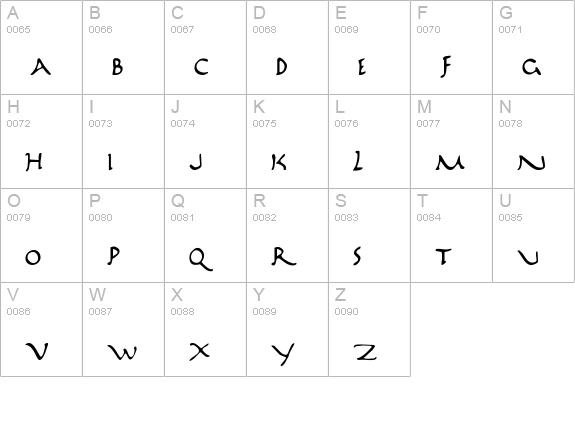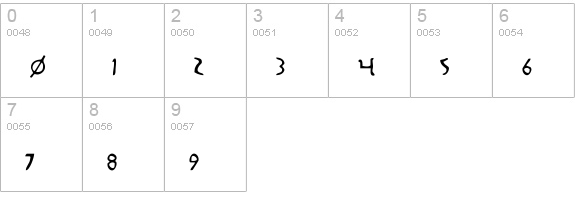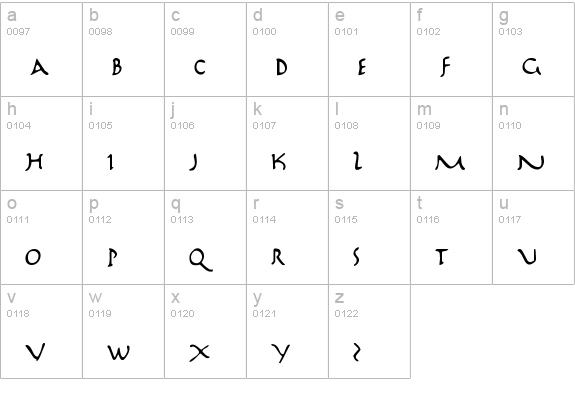
Marathon II font is a stunning typeface that exudes elegance and sophistication. With its clean lines and distinctive curves, this font is perfect for adding a touch of class to any project. Whether you are designing a logo, creating a website, or crafting a professional document, Marathon II font is sure to make a lasting impression. What sets Marathon II font apart is not only its impeccable design, but also the fact that it is available for free. That's right - you can freely download Marathon II font at FontsMarket.com. This means that you can enjoy the beauty and versatility of this font without any cost or hassle. It's a true gem for designers and creatives who are looking for high-quality fonts without breaking the bank. Marathon II font offers a wide range of weights and styles, allowing you to experiment and find the perfect fit for your project. Whether you prefer a bold and impactful look or a more subtle and refined approach, Marathon II font has you covered. Its versatility makes it suitable for a variety of applications, from headlines and titles to body text and captions. The legibility of Marathon II font is exceptional, making it ideal for both print and digital mediums. Its carefully crafted characters ensure that each letter is easily distinguishable, even at small sizes or low resolutions. This attention to detail is what sets Marathon II font apart and makes it a top choice for designers who value quality and precision. If you're in search of a stunning font that is not only visually appealing but also free to download, look no further than Marathon II font. Head over to FontsMarket.com today and discover the endless possibilities this font has to offer. Elevate your designs and make a statement with Marathon II font - the perfect blend of style, accessibility, and affordability.